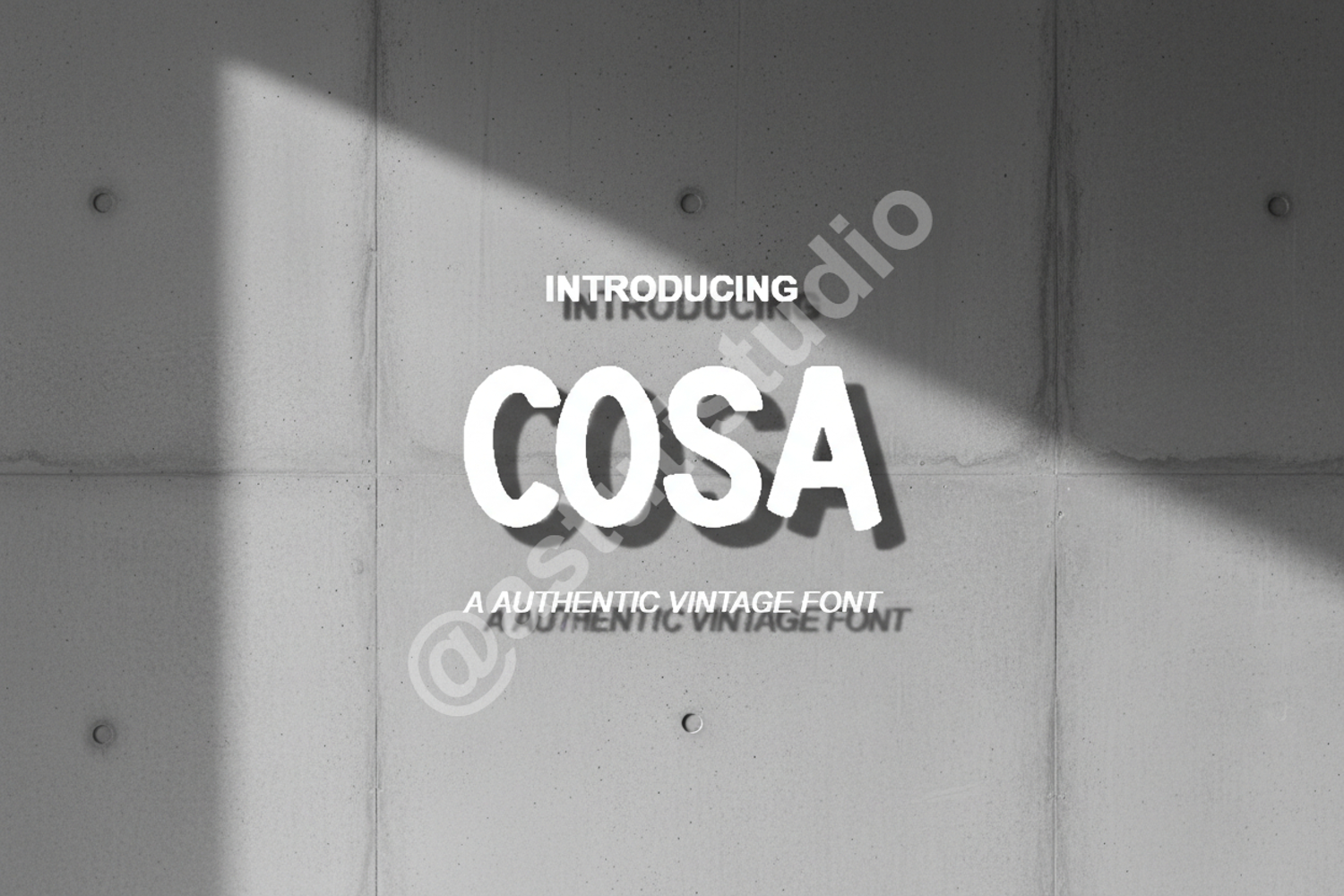
Cosa - Modern Minimalist Sans Serif Font
Cosa
Cosa is a premium sans-serif typeface meticulously crafted to blend modern minimalism with timeless sophistication. Its clean lines and balanced proportions ensure that your designs remain legible and stylish across all platforms. Whether you are working on a high-end corporate identity or a creative lifestyle brand, Cosa provides the perfect foundation for professional typography.
- Full Uppercase and Lowercase Character Set
- Comprehensive Numerals, Punctuation, and Multilingual Support